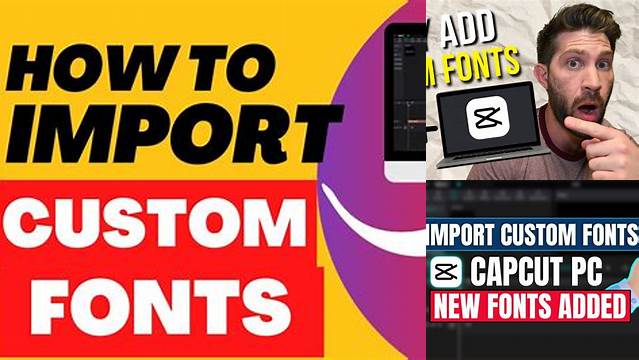
Import Fonts To CapCut PC: A Step-by-Step Guide
Hey guys! Are you looking to spice up your CapCut PC videos with some unique and personalized fonts? You've come to the right place! In this guide, we'll walk you through the simple steps to import custom fonts and elevate your editing game. Using custom fonts in CapCut on your PC allows you to move beyond the standard options, inject your personality into your projects, and create professional-looking videos that truly stand out. Whether you're creating content for YouTube, social media, or personal projects, having the right fonts can make all the difference. This article will cover everything from finding awesome fonts to installing them on your system and finally, using them within CapCut. So, let's dive in and get those creative juices flowing! You’ll find that the process is surprisingly straightforward, and with a little practice, you’ll be adding custom fonts like a pro in no time. We’ll also touch on some common issues you might encounter and how to troubleshoot them, ensuring a smooth and frustration-free experience. Get ready to transform your videos with custom typography!
Why Use Custom Fonts in CapCut?
Using custom fonts in CapCut can drastically improve the visual appeal and professionalism of your videos. Think about it – the fonts you use convey a message just as much as the words themselves. A playful font can add a touch of whimsy, while a sleek, modern font can give your video a sophisticated edge. By using custom fonts, you're not just adding text; you're adding character and style. Default fonts are great, but they're…well, default. Everyone else is using them! Custom fonts allow you to differentiate your content, making it instantly recognizable and more memorable. Plus, they let you match the typography to your brand or the specific theme of your video. Imagine you're creating a tutorial – a clear, sans-serif font will make the instructions easy to read. Or, if you're making a cinematic short film, an elegant, serif font could add a touch of drama. The possibilities are endless! But the benefits extend beyond just aesthetics. Custom fonts can also help you maintain consistency across all your video projects, reinforcing your brand identity. If you have a logo with a specific font, using that same font in your video titles and lower thirds can create a cohesive and professional look. So, whether you’re a seasoned video editor or just starting, exploring the world of custom fonts is a fantastic way to level up your creations. Let's get started on how to actually make it happen!
Finding the Perfect Fonts
Before you can import custom fonts into CapCut, you need to find some fonts you love. The internet is a treasure trove of both free and premium fonts, so there’s something out there for every project and budget. Let's explore some top resources and tips for finding the perfect fonts for your videos. First off, Google Fonts is an amazing resource. It offers a vast library of high-quality, open-source fonts that are free for both personal and commercial use. The best part? They're super easy to browse and download. You can filter fonts by category, style, and even language, making it simple to find exactly what you need. Another fantastic option is Font Squirrel. This site focuses on free fonts that are also commercially licensed, so you can use them in your projects without worrying about copyright issues. They also have a font identifier tool, which is incredibly handy if you see a font you like but don't know its name. For those willing to invest in premium fonts, MyFonts and Adobe Fonts are excellent choices. MyFonts has a huge selection of fonts from various foundries, and Adobe Fonts is included with an Adobe Creative Cloud subscription, giving you access to thousands of fonts that integrate seamlessly with Adobe software and, of course, CapCut. When choosing fonts, think about the tone and style of your video. A bold, sans-serif font might be perfect for an energetic vlog, while a delicate script font could be ideal for a wedding video. Also, consider readability. No matter how beautiful a font is, if it's hard to read, it won't serve its purpose. Always test your fonts with different text sizes and colors to make sure they're clear and legible. Finally, don’t be afraid to experiment! Try pairing different fonts together to create visual interest, but remember to keep it consistent and avoid using too many fonts in one video. With a little research and creativity, you’ll find the perfect fonts to make your videos shine.
Step-by-Step Guide: Importing Fonts to CapCut PC
Now for the main event: importing those awesome fonts into CapCut. This process is pretty straightforward, but it’s important to follow each step carefully to ensure everything works smoothly. Let’s break it down:
And that’s it! You’ve now added a custom font to CapCut PC. Wasn’t so hard, right? Now you can use it in all your video projects. If you run into any issues, don’t worry; we’ll cover some common troubleshooting tips in the next section.
Even with the simplest processes, sometimes things don’t go exactly as planned. If you’re having trouble importing custom fonts into CapCut, don’t sweat it! Here are some common issues and how to fix them:
So, there you have it! Importing custom fonts into CapCut PC is a breeze once you know the steps. By adding your own fonts, you can truly personalize your videos and make them stand out from the crowd. Remember, it's all about finding the right fonts that match your style and the message you want to convey. From downloading and installing fonts to troubleshooting common issues and using them effectively, we’ve covered all the bases. Now it’s your turn to get creative and experiment with different fonts in your projects. Whether you’re making videos for fun, for your business, or for social media, custom fonts can elevate your content to the next level. Don’t be afraid to explore different font styles and pairings to find what works best for you. And if you ever run into any problems, just refer back to this guide for troubleshooting tips. With a little practice, you’ll be a font-importing pro in no time! Happy editing, and we can't wait to see the amazing videos you create with your new fonts!